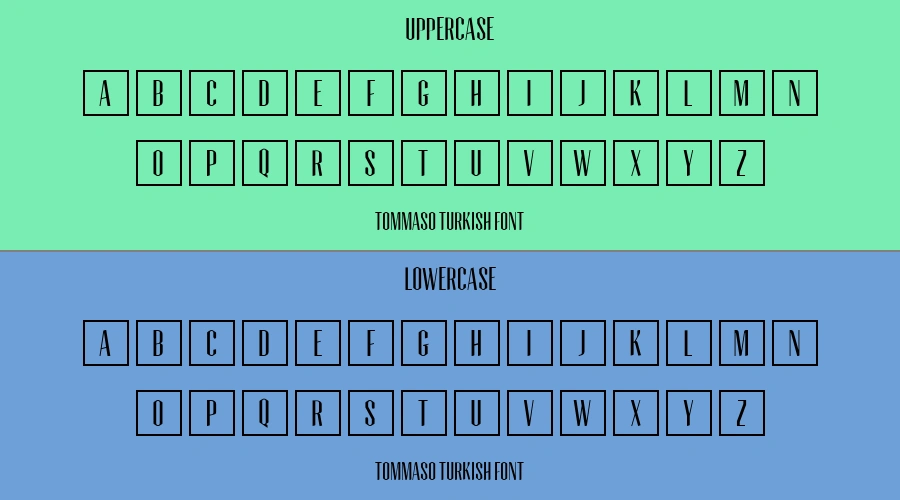
About Tommaso Turkish Font
When typographic excellence matters most, Tommaso Turkish Font delivers through its thoughtful blend of contextual swashes and typographic color. Specially crafted for historical publications, it offers the longevity and visual authority required for sophisticated design work. Every detail serves a purpose.
The character set showcases thoughtful details like tapered strokes alongside functional contextual ligatures. This proves especially valuable in brand logos, where texture integration directly influences results. Particular attention was paid to proportion and brand personality during development.